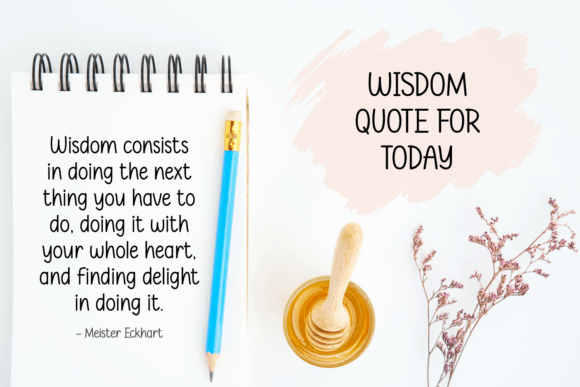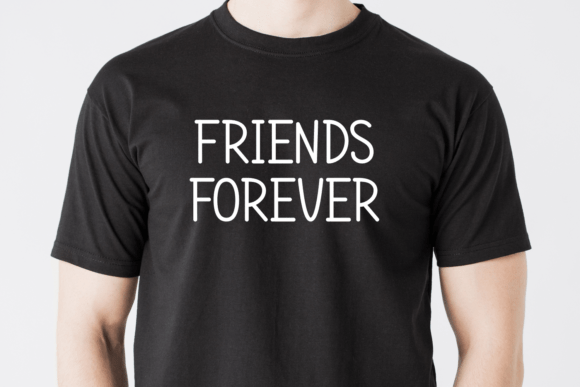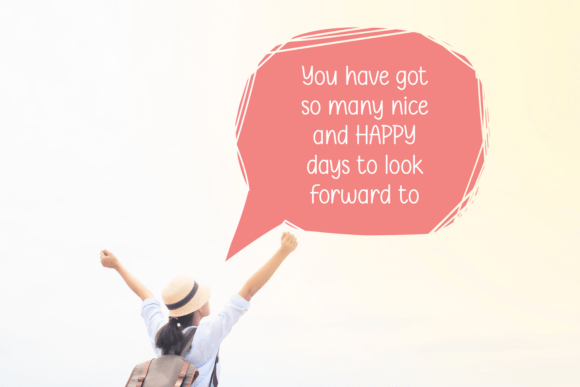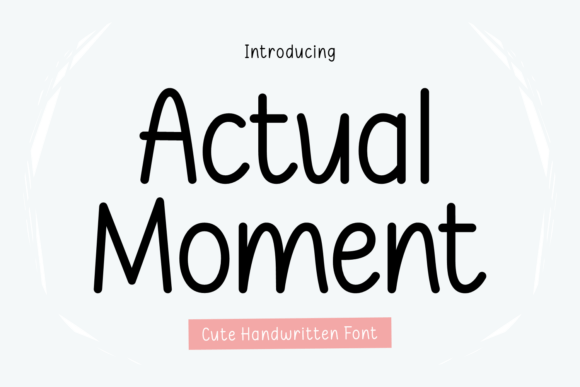
Introducing Actual Moment Font: The Charming Handwritten Typeface for Your Designs
Are you looking for a font that can add a touch of warmth, sincerity, and personality to your designs? Look no further than Actual Moment Font, a charming and cute handwritten typeface that’s perfect for a wide range of design projects. In this article, we’ll explore the features and benefits of Actual Moment Font, and show you how it can elevate your designs to the next level.
The Characteristics of Actual Moment Font
Actual Moment Font is an informal, rounded handwritten typeface that exudes a friendly and approachable feel. Its unique letterforms are carefully crafted to convey a sense of warmth and sincerity, making it perfect for designs that aim to connect with the audience on a personal level. The font’s rounded edges and smooth lines create a soft, gentle look that’s both soothing and inviting.
What Makes Actual Moment Font So Versatile?
One of the standout features of Actual Moment Font is its versatility. This charming typeface can be used for a wide range of design projects, from branding and logo design to wedding and greeting cards, fashion, and marketing promotions. Whether you’re looking to create a fancy and elegant design or a casual and laid-back one, Actual Moment Font is the perfect choice.
Branding and Logo Design
Actual Moment Font is an excellent choice for branding and logo design, as it can help create a unique and memorable identity for your business. The font’s friendly and approachable feel makes it perfect for companies that want to convey a sense of warmth and approachability. With Actual Moment Font, you can create a logo that’s both elegant and casual, making it perfect for businesses that want to stand out from the crowd.
Wedding and Greeting Cards
Actual Moment Font is also perfect for wedding and greeting cards, as it can add a touch of romance and sincerity to your designs. The font’s elegant and cursive feel makes it ideal for creating beautiful and heartfelt cards that will make your loved ones feel special. Whether you’re designing a wedding invitation, a birthday card, or a holiday greeting, Actual Moment Font is the perfect choice.
Fashion and Marketing Promotions
Actual Moment Font can also be used for fashion and marketing promotions, as it can add a touch of style and sophistication to your designs. The font’s unique and elegant feel makes it perfect for creating eye-catching promotional materials, such as flyers, brochures, and posters. With Actual Moment Font, you can create designs that are both fashionable and effective.
Why Choose Actual Moment Font?
So, why choose Actual Moment Font for your designs? Here are just a few reasons:
- Unique and charming design: Actual Moment Font has a unique and charming design that’s sure to make your designs stand out.
- Versatile: The font is versatile and can be used for a wide range of design projects.
- Elegant and casual: Actual Moment Font is both elegant and casual, making it perfect for designs that need to convey a sense of sophistication and approachability.
- Easy to read: The font is easy to read, making it perfect for designs that need to communicate a message clearly.
In conclusion, Actual Moment Font is a charming and cute handwritten typeface that’s perfect for designers and crafters who want to add a touch of warmth, sincerity, and personality to their designs. With its unique and elegant feel, versatility, and ease of use, Actual Moment Font is an excellent choice for a wide range of design projects. Whether you’re designing a logo, a wedding card, or a marketing promotion, Actual Moment Font is the perfect choice.